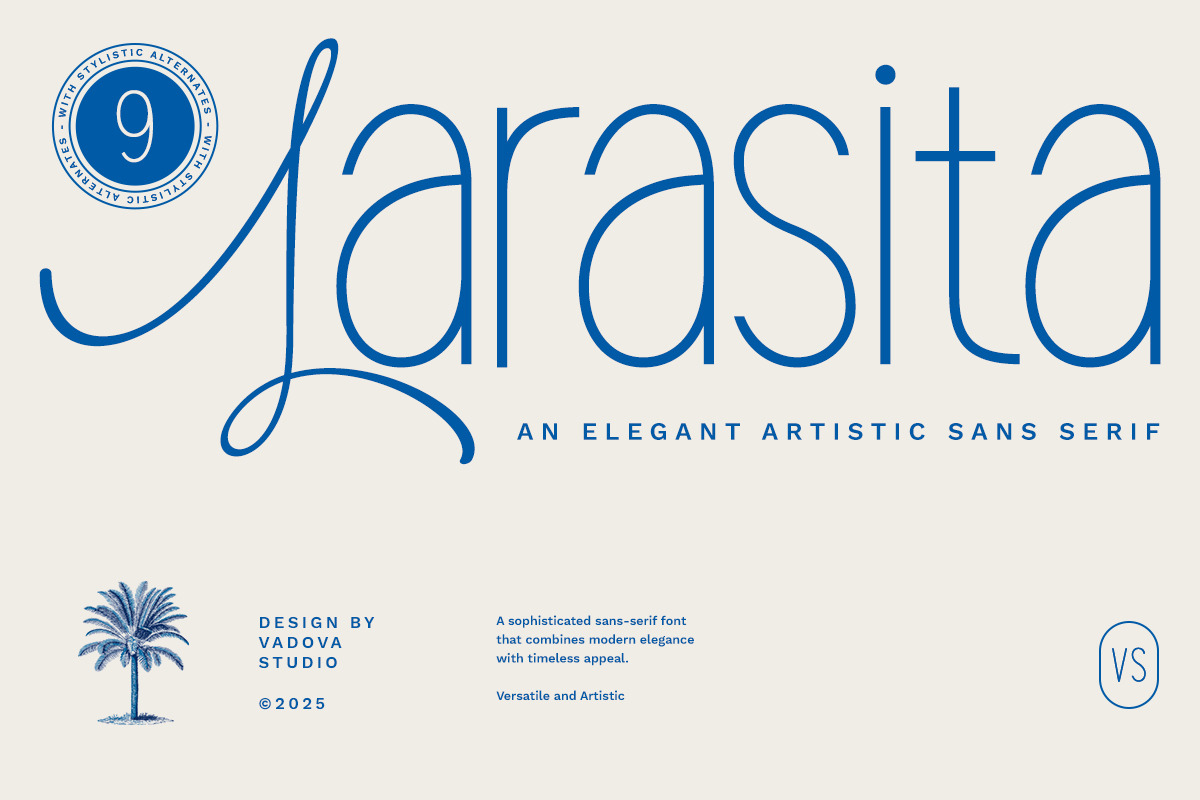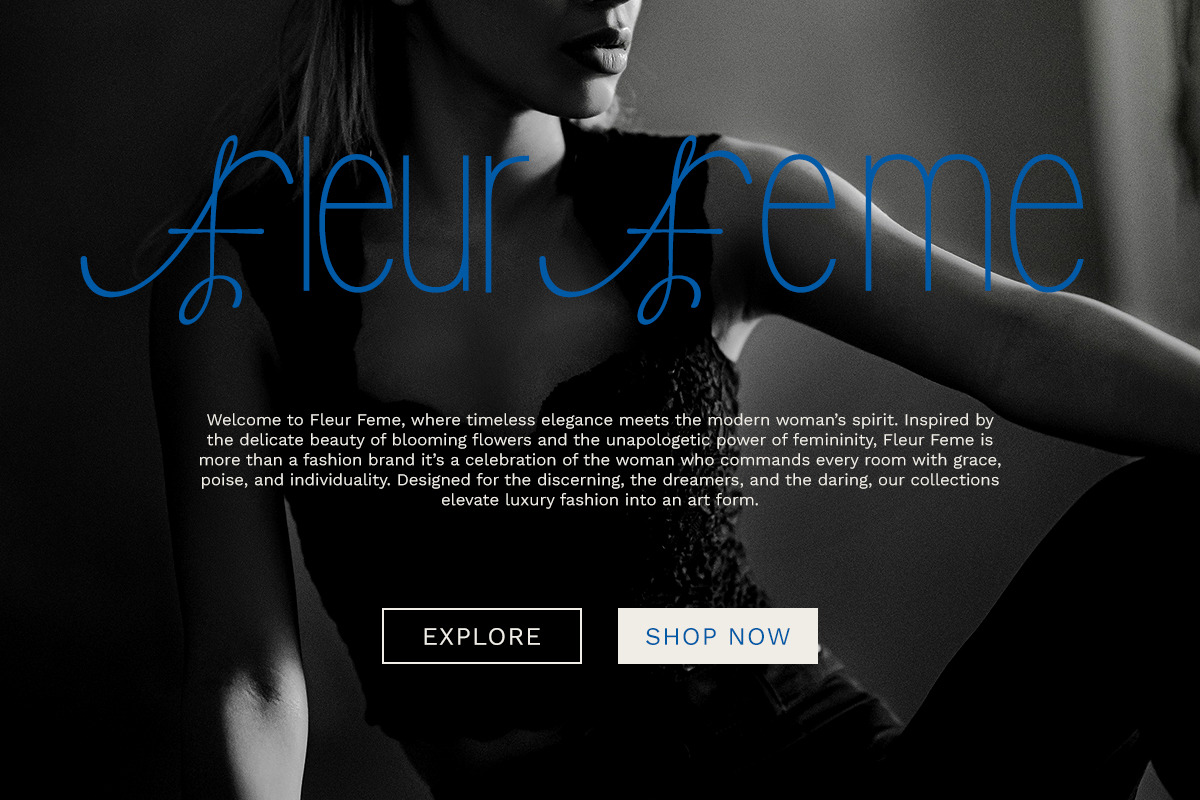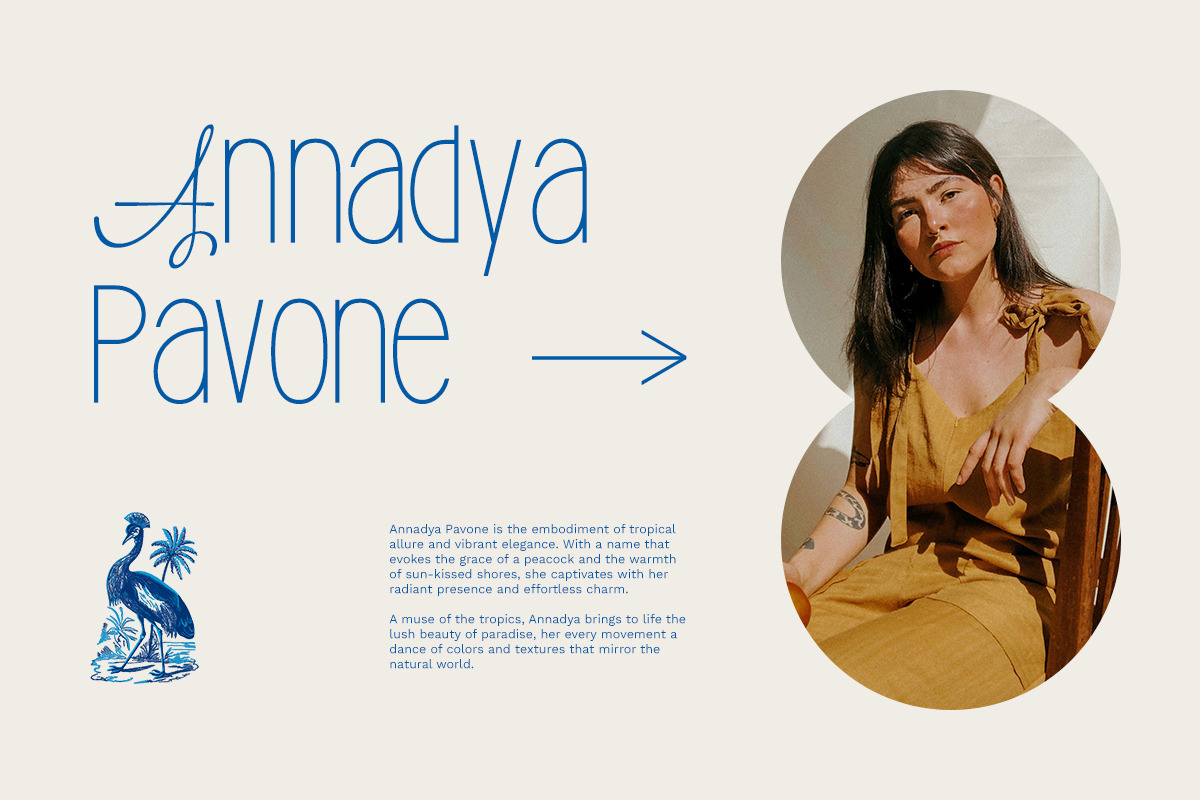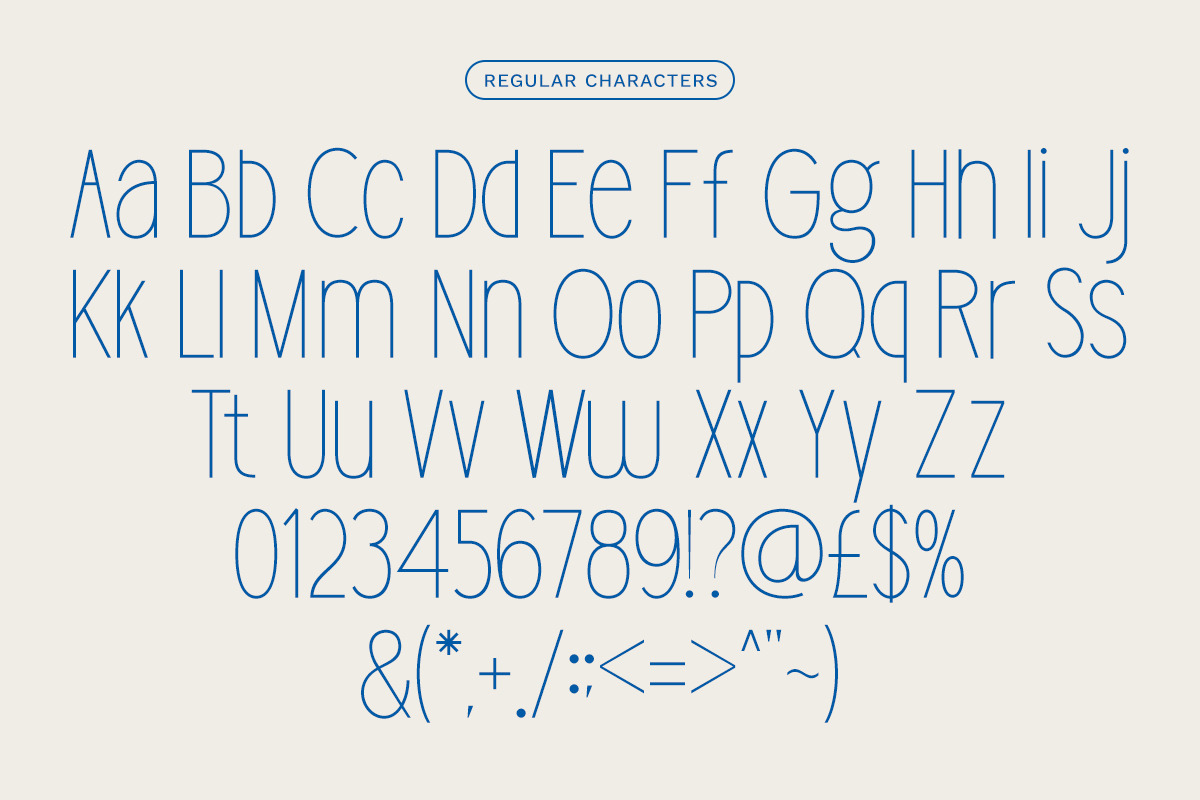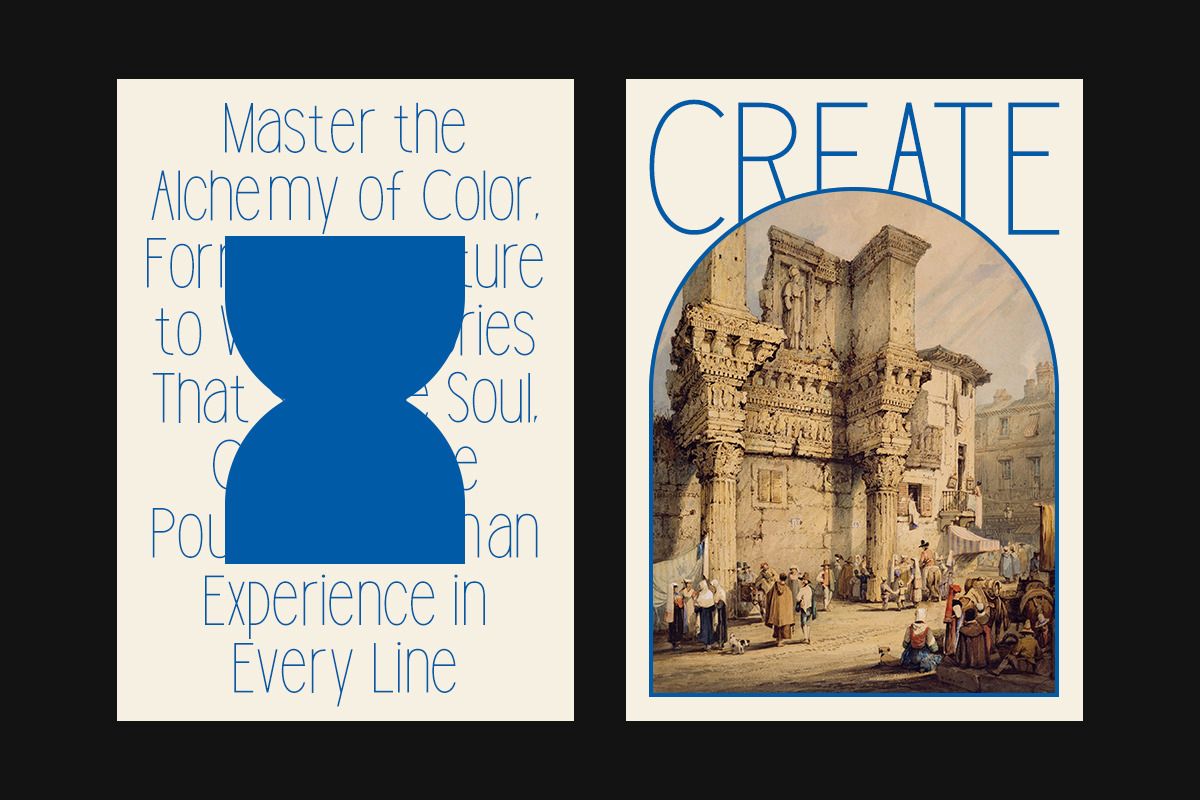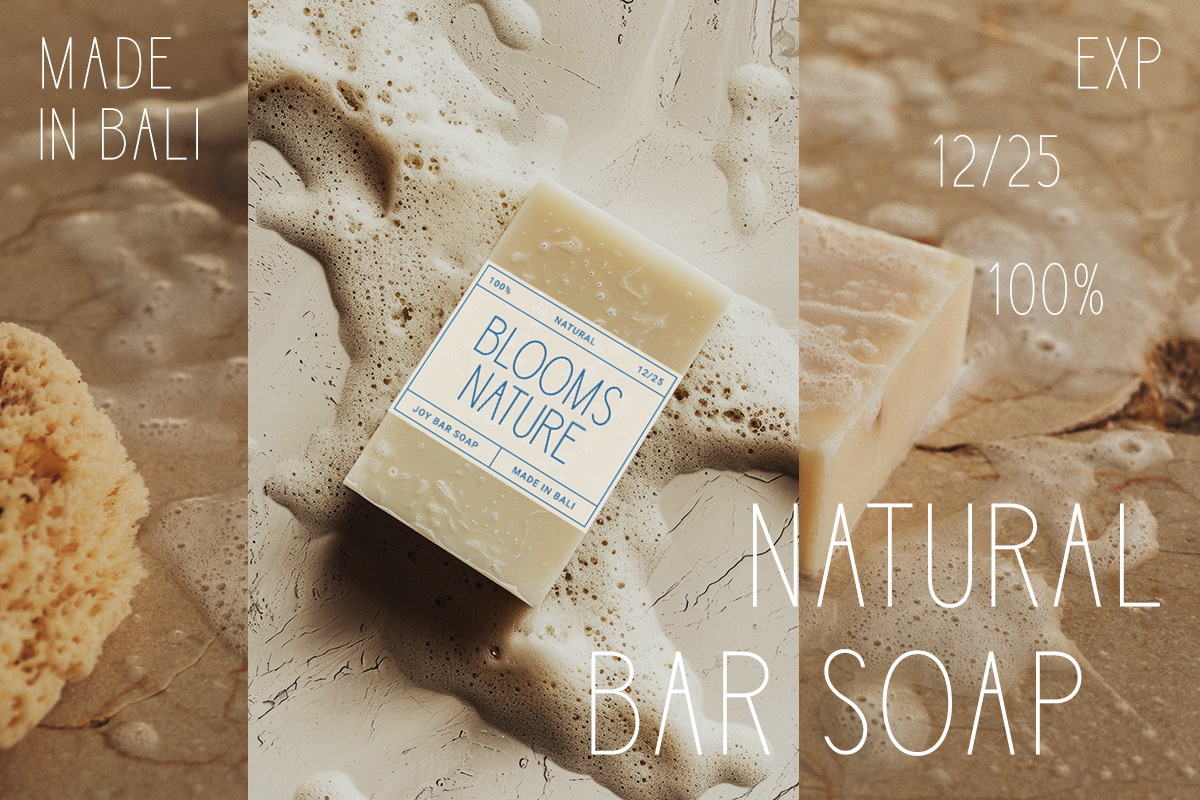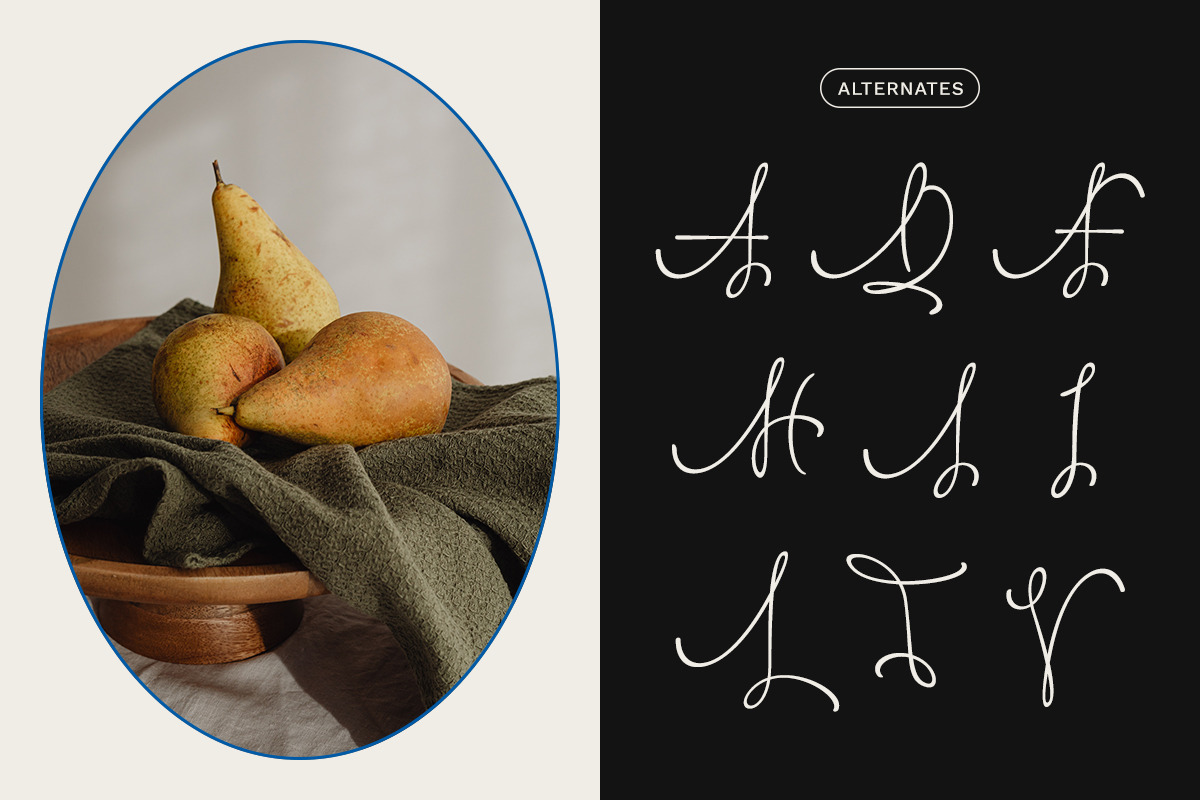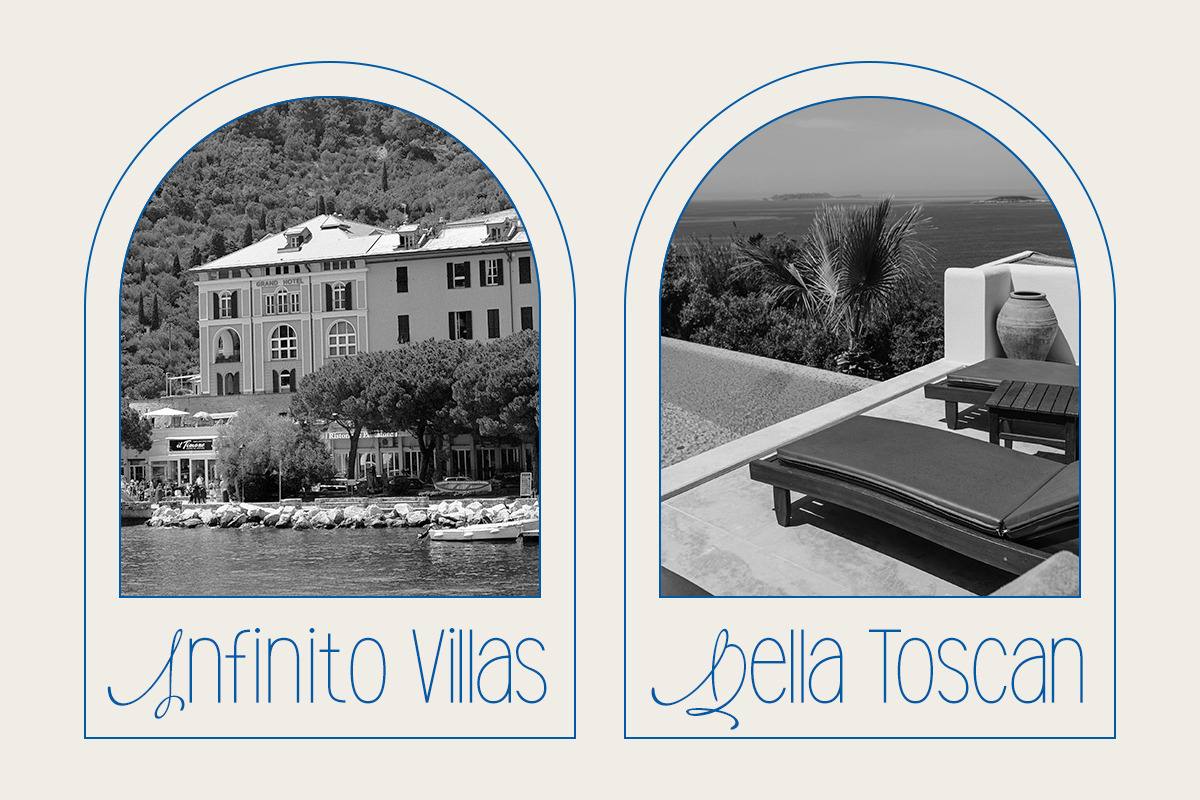
Larasita Elegant Sans Serif Font
Larasita is a refined sans serif typeface with a graceful twist the perfect balance of minimal modern structure and artistic flair. Designed for creators who need elegance without excess, Larasita features smooth curves, sculpted terminals, and expressive alternates that give every composition a sense of luxury and personality. From editorial spreads to packaging design, this font brings timeless beauty to every visual story.
Built with an eye for fashion and refined detail, Larasita elevates your typography with subtle flourishes and creative ligatures. Its clean sans serif base ensures clarity and modernity, while its signature swashes and artistic alternates bring a hint of couture sophistication.
Each character is meticulously designed to maintain harmony in both regular and decorative form. The result is a versatile typeface that shines in minimalist aesthetics as well as more expressive, styled compositions. Larasita captures a feeling of care, craft, and quiet luxury.
- Artistic sans serif elegance with expressive curves and high-contrast terminals
- Signature ligatures and swashes for a custom, luxury feel
- Balanced letterforms perfect for clean modern layouts or styled editorial compositions
- Includes uppercase, lowercase, numbers, punctuation and stylish alternates
- Multilingual support for global branding consistency
- Ideal for beauty brands, fashion labels, and editorial content
- Designed for digital & print — logos, packaging, magazines, social media
- Minimal yet expressive — crafted for timeless aesthetics
Relevance and Use Cases designing boutique branding, elegant social media, or artistic print materials, editorial layouts, beauty packaging, personal branding, luxury websites, and modern wedding invitations Larasita is where art meets precision and this font adapts beautifully to your creative flow.
Elevate your design with Larasita and let your typography speak with poise, clarity, and charm.